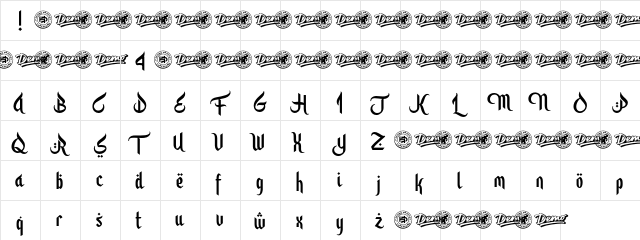
Sketsa Ramadhan Regular
Regular · Hendra Pratama Hendra Pratama ·
Foundry Hendra Pratama
DesignerHendra Pratama
Design Context for Sketsa Ramadhan Typeface
Sketsa Ramadhan is a composed and adaptable typeface that performs quietly and consistently across a wide range of design contexts.